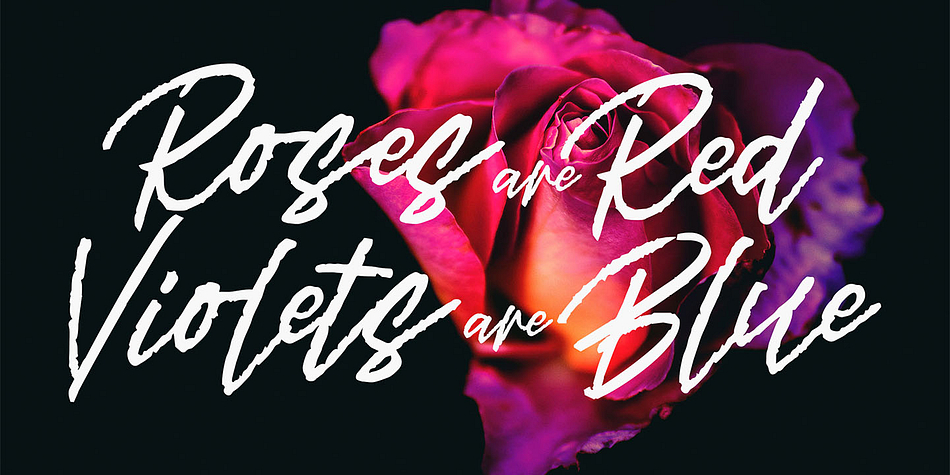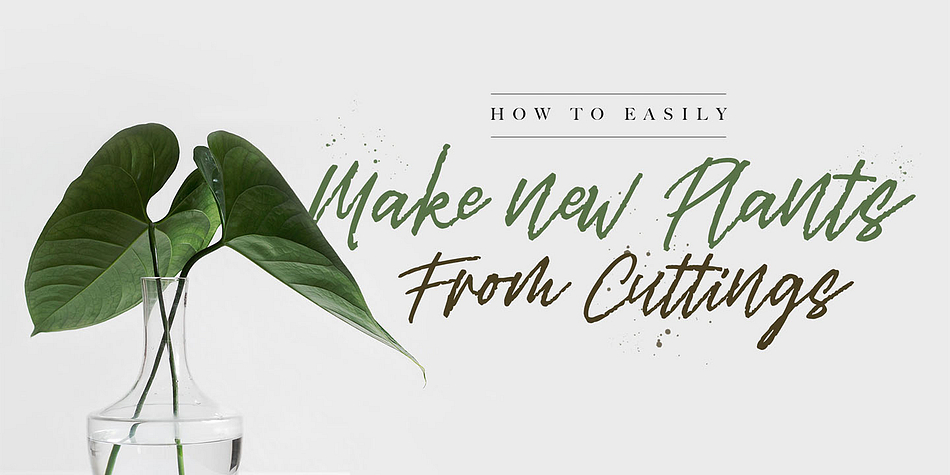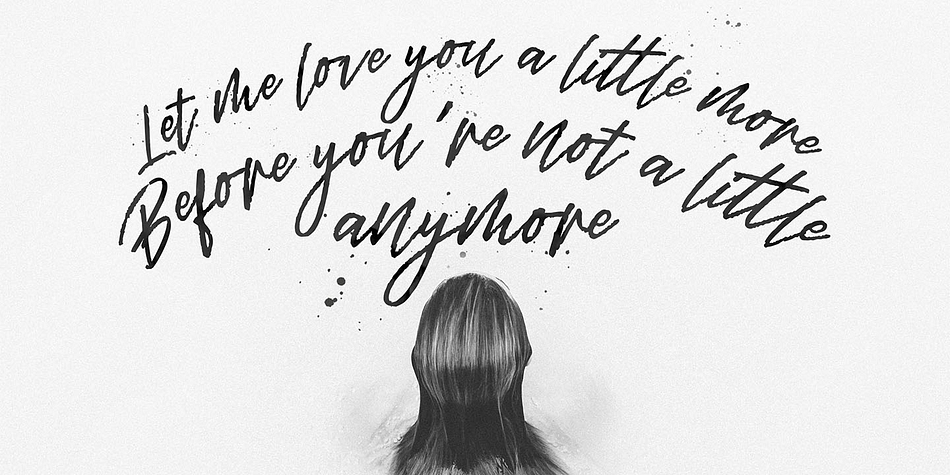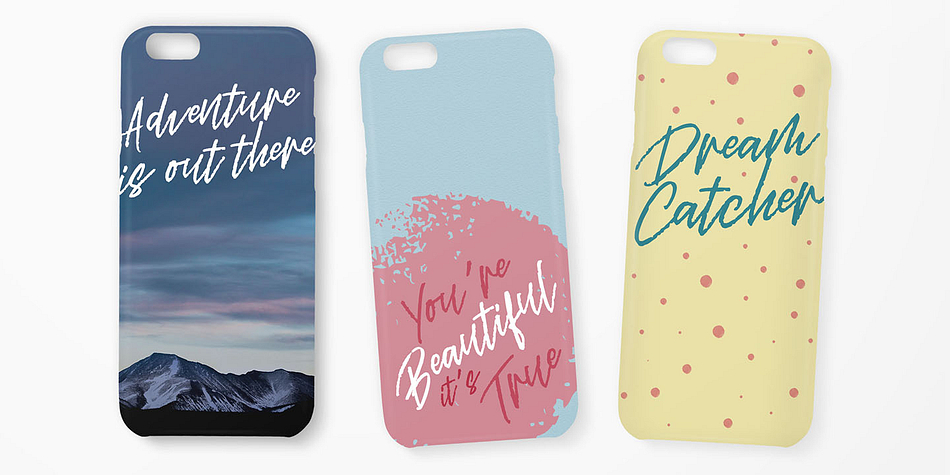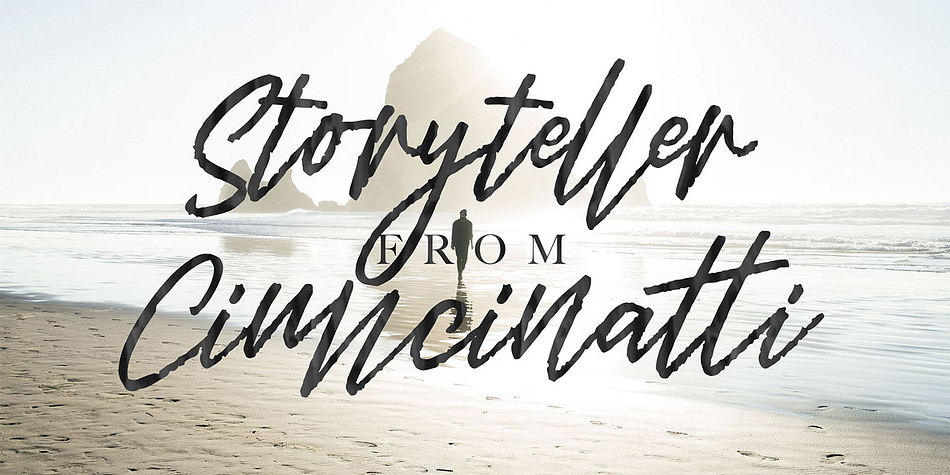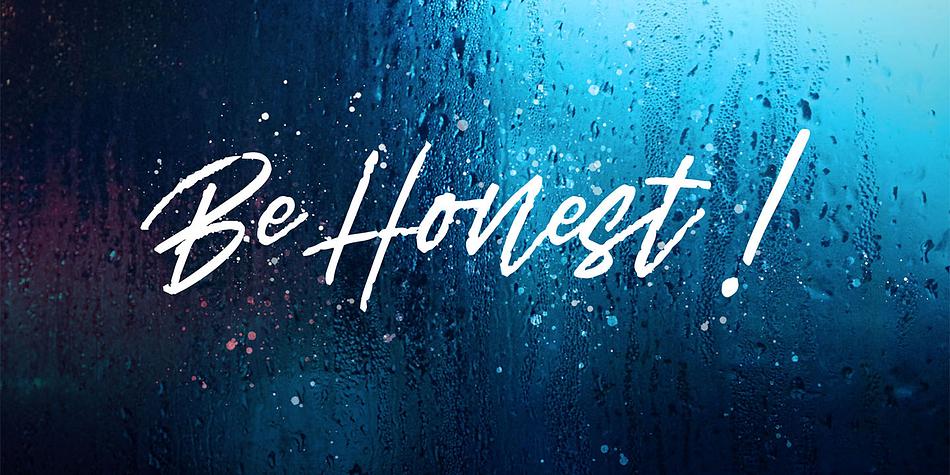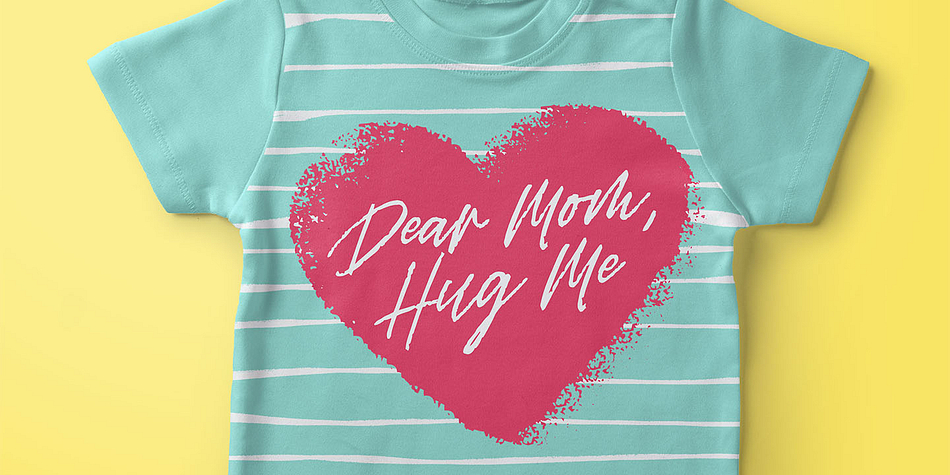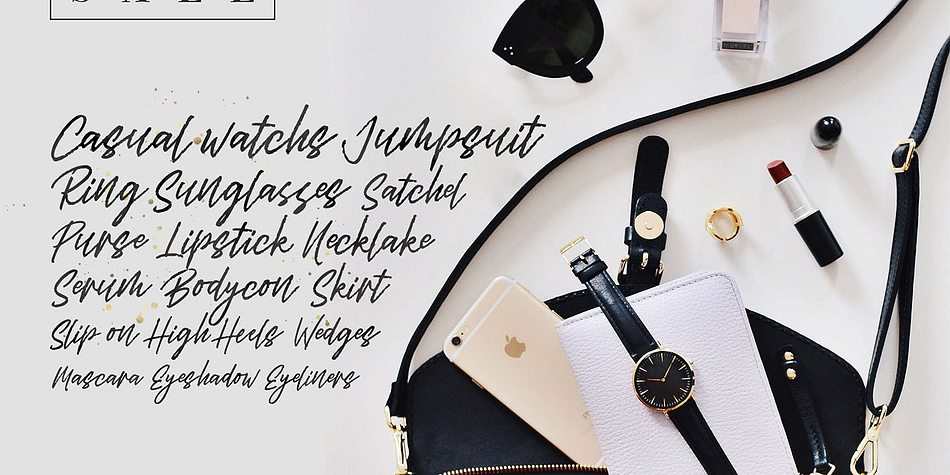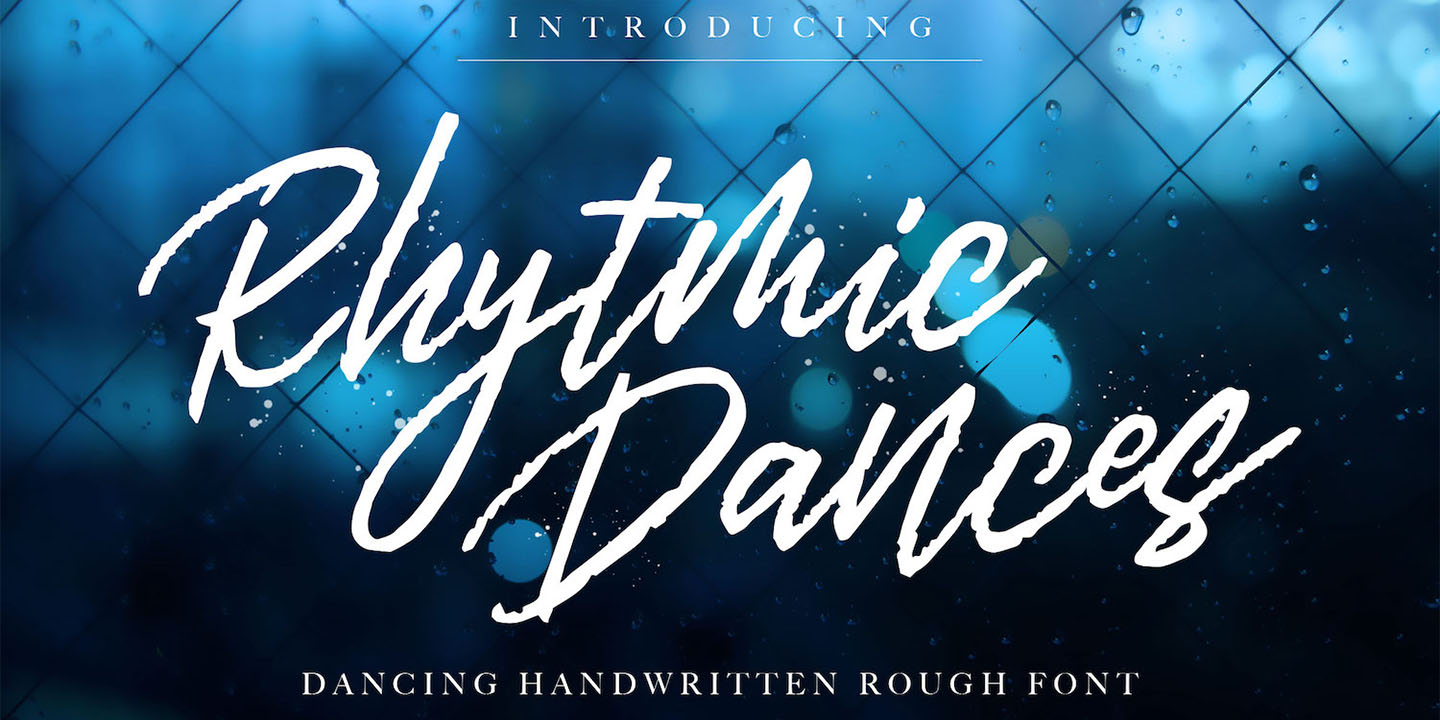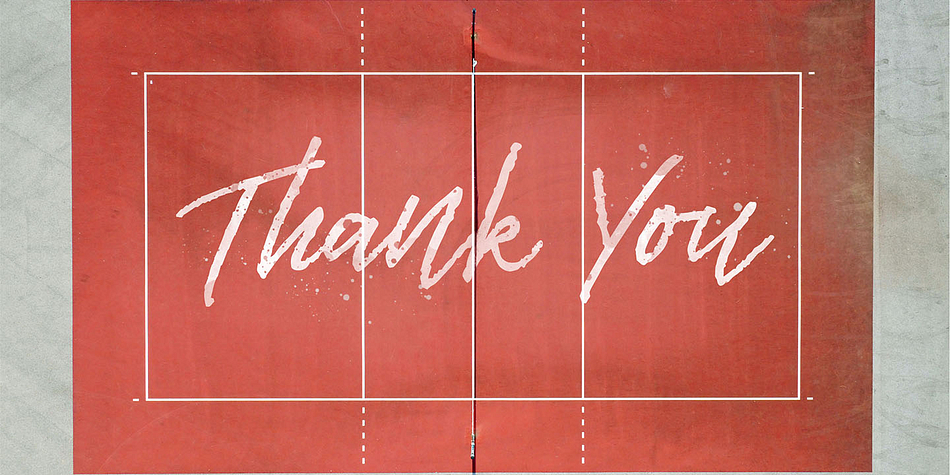
Rhytmic Dances
Designed by Adam Fathony, Rhytmic Dances is a modern calligraphy font family published by AF Studio.
Rhytmic Dances - Dancing Handwritten Rough
Referring from daily handwriting This fonts is based on dialy handwriting with added style with dancing baseline. Rough as just natural from the markers. Creating the artwork with Rhytmic Dances made your art are become organic and natural style.
Rhytmic Dances comes with All Lowercase Double Letter. And also the Splatter Fonts for completing the natural style artwork. It will be great for Logotypes, Posters, Digital Lettering Arts, Clean design, Branding Design, Sign, Overlay with Photo Background, etc.